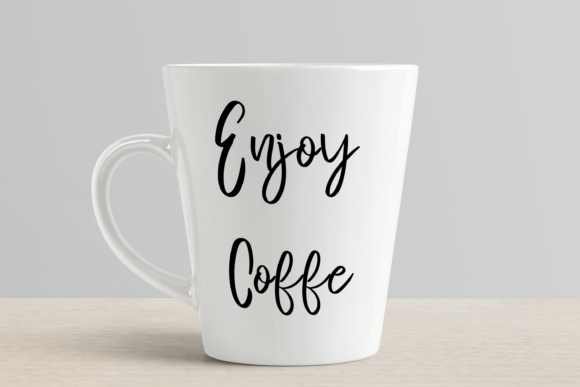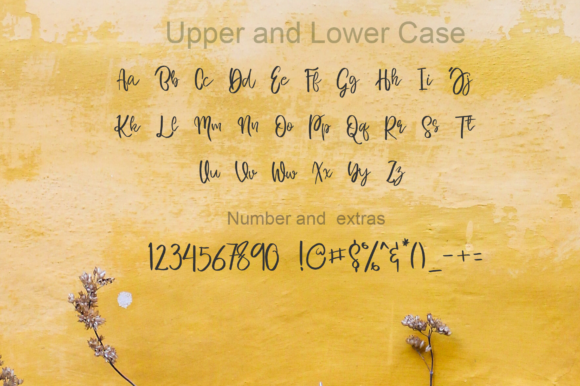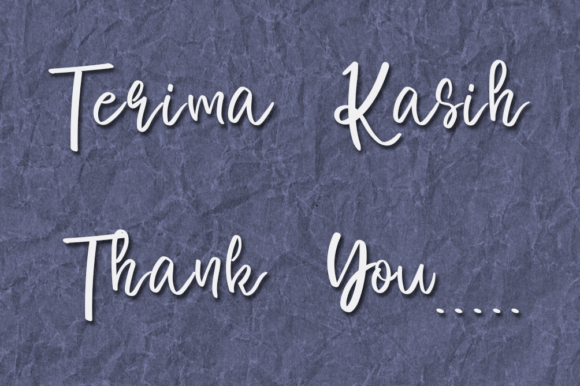
Introduction to Bergamo in Love Font
Bergamo in Love is a whimsical script font with a relaxed theme, featuring a lovely style.
Why Choose Bergamo in Love Font?